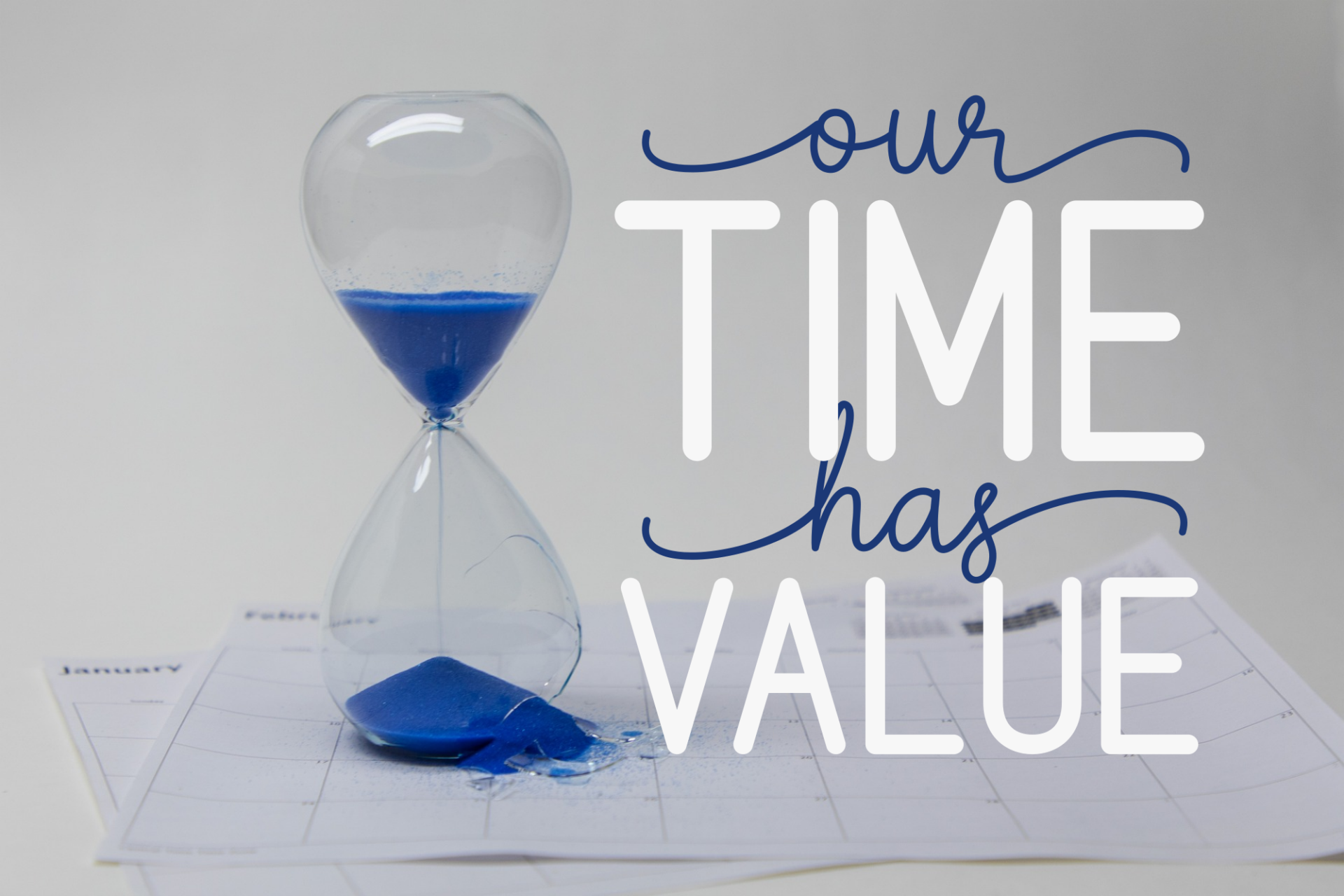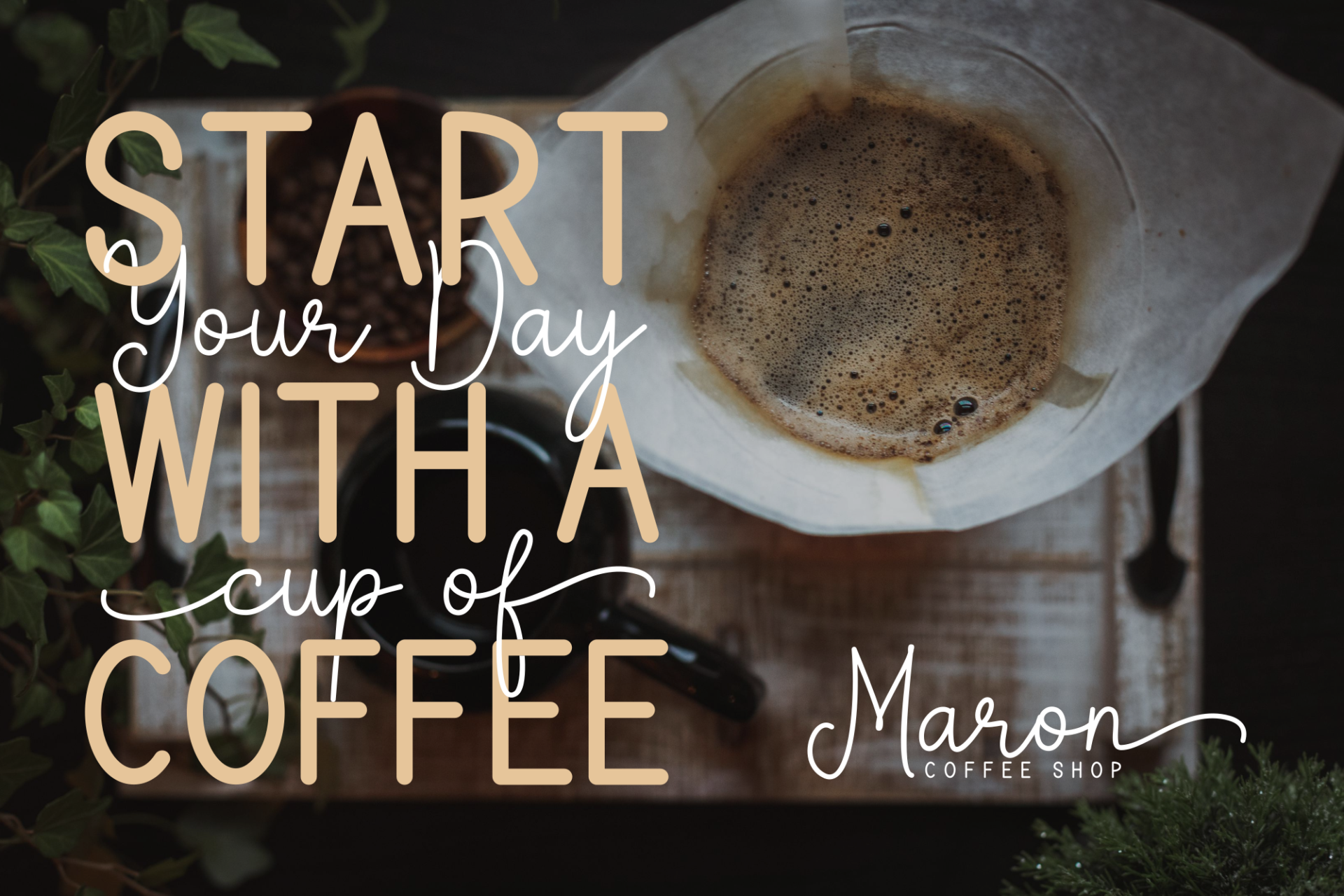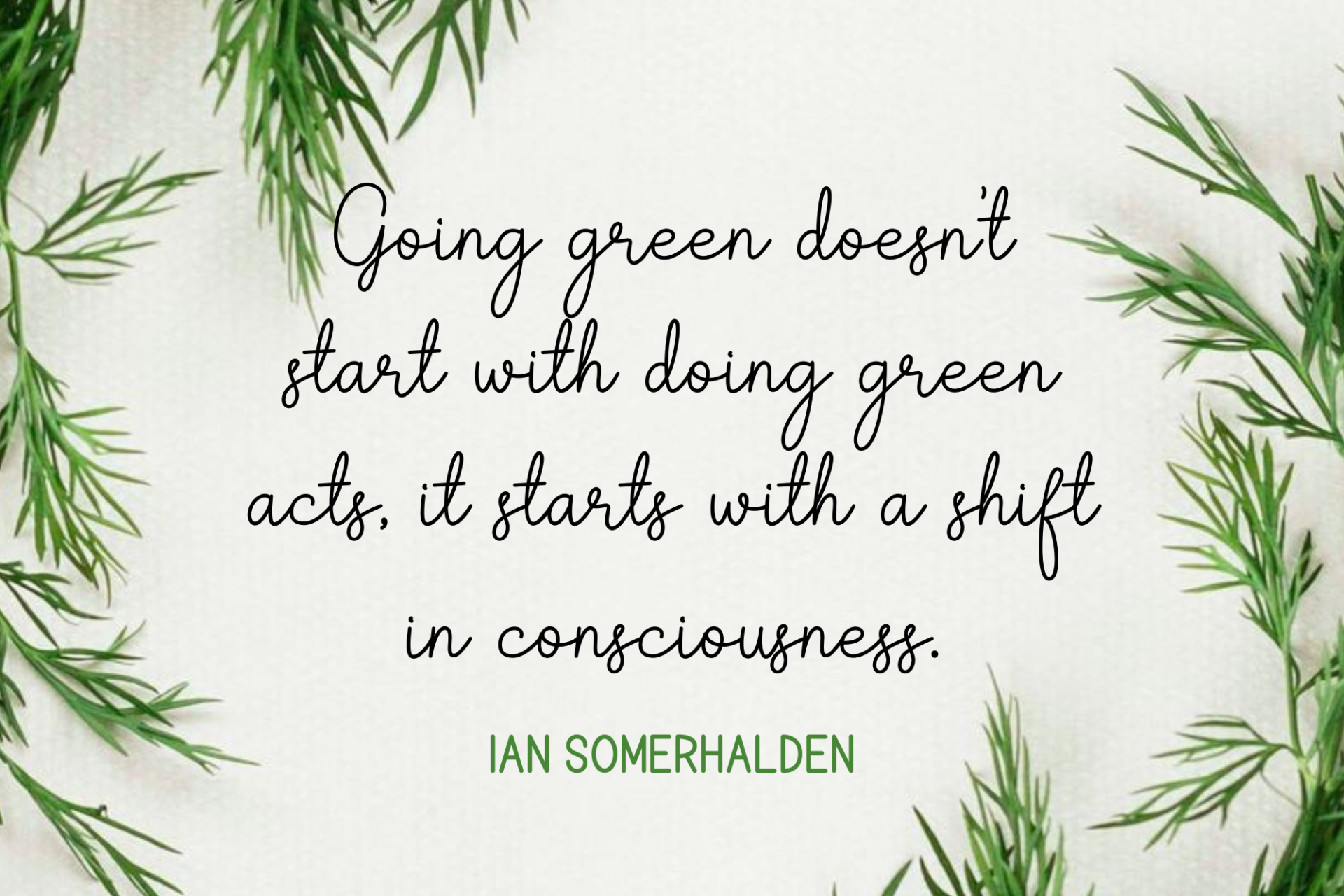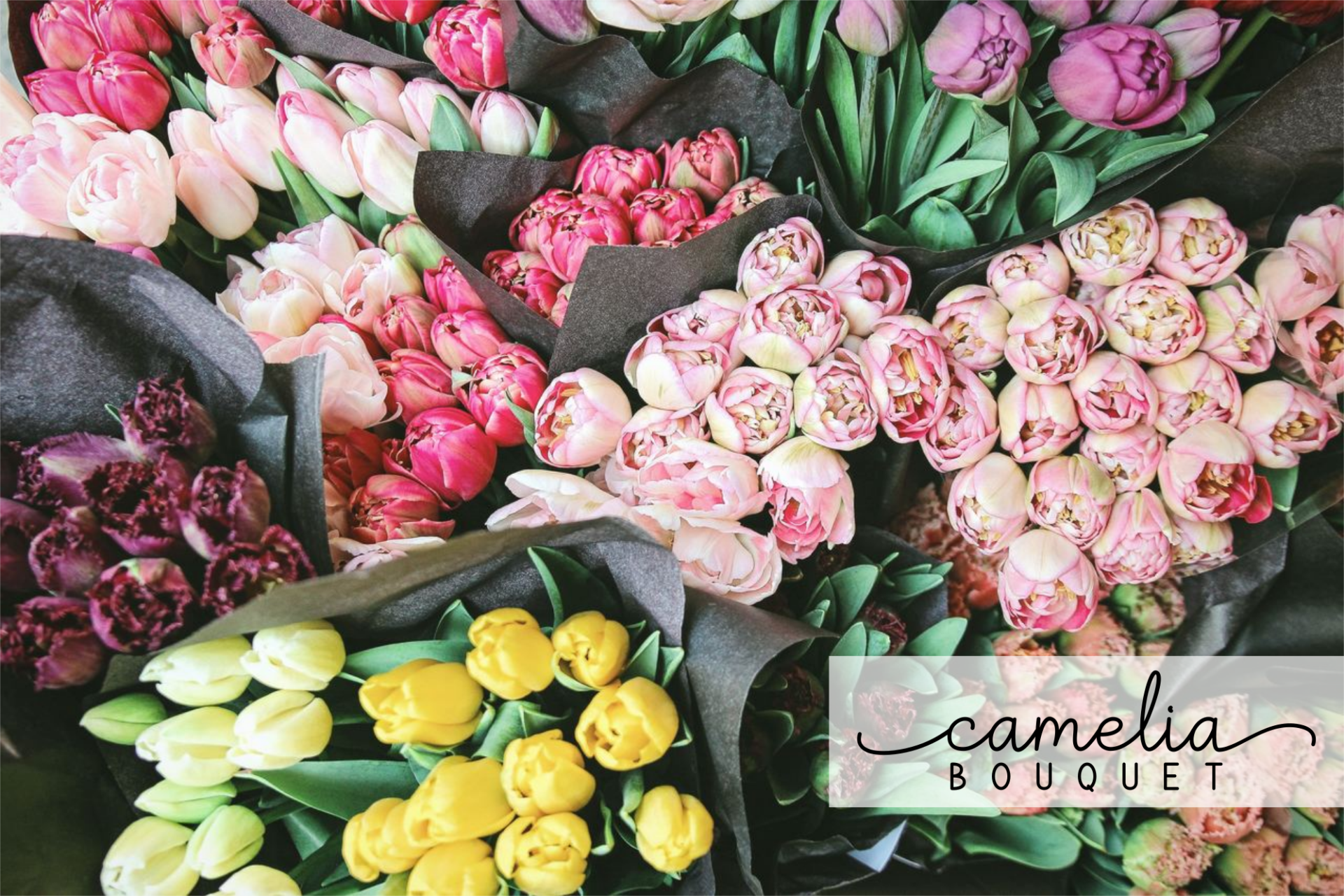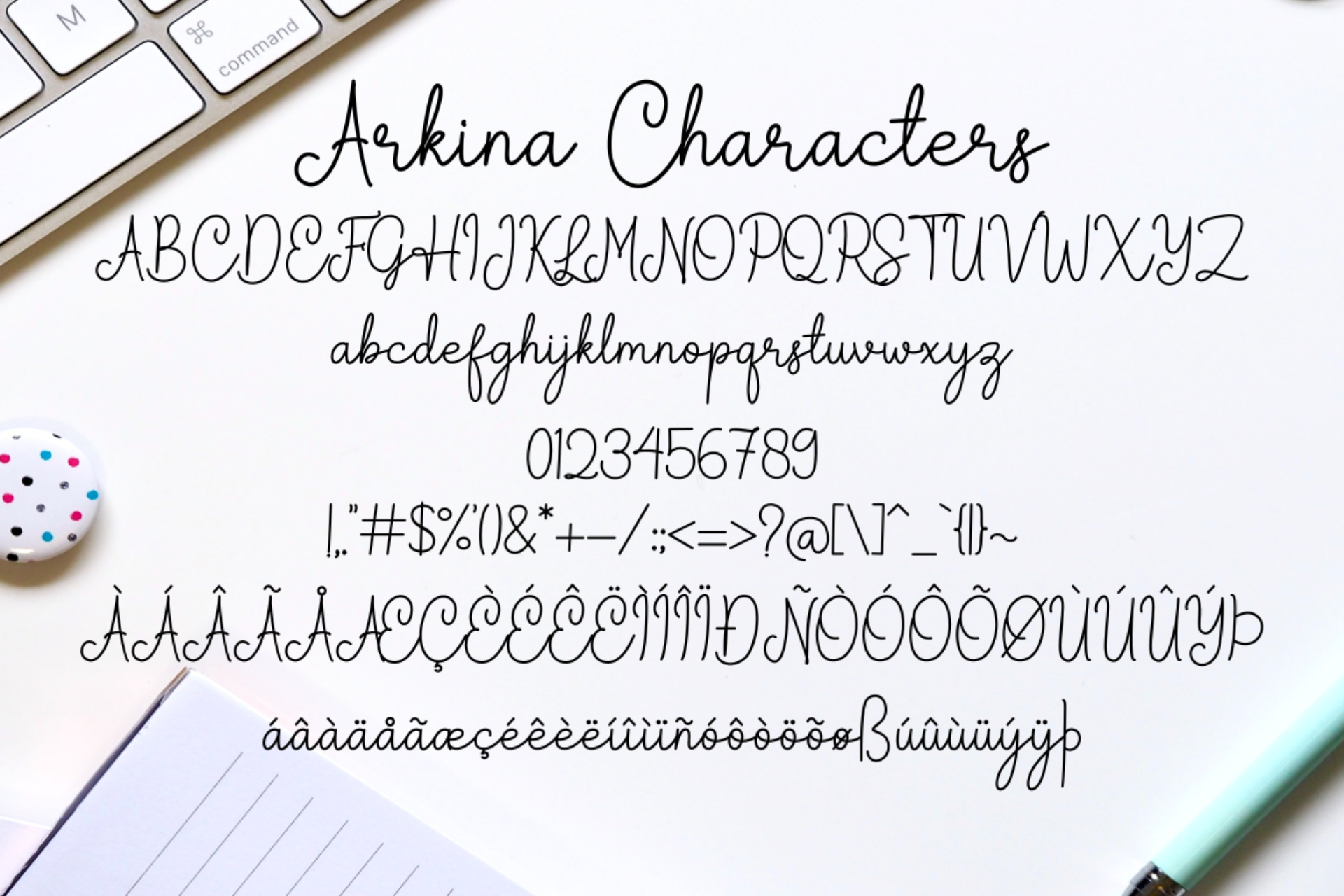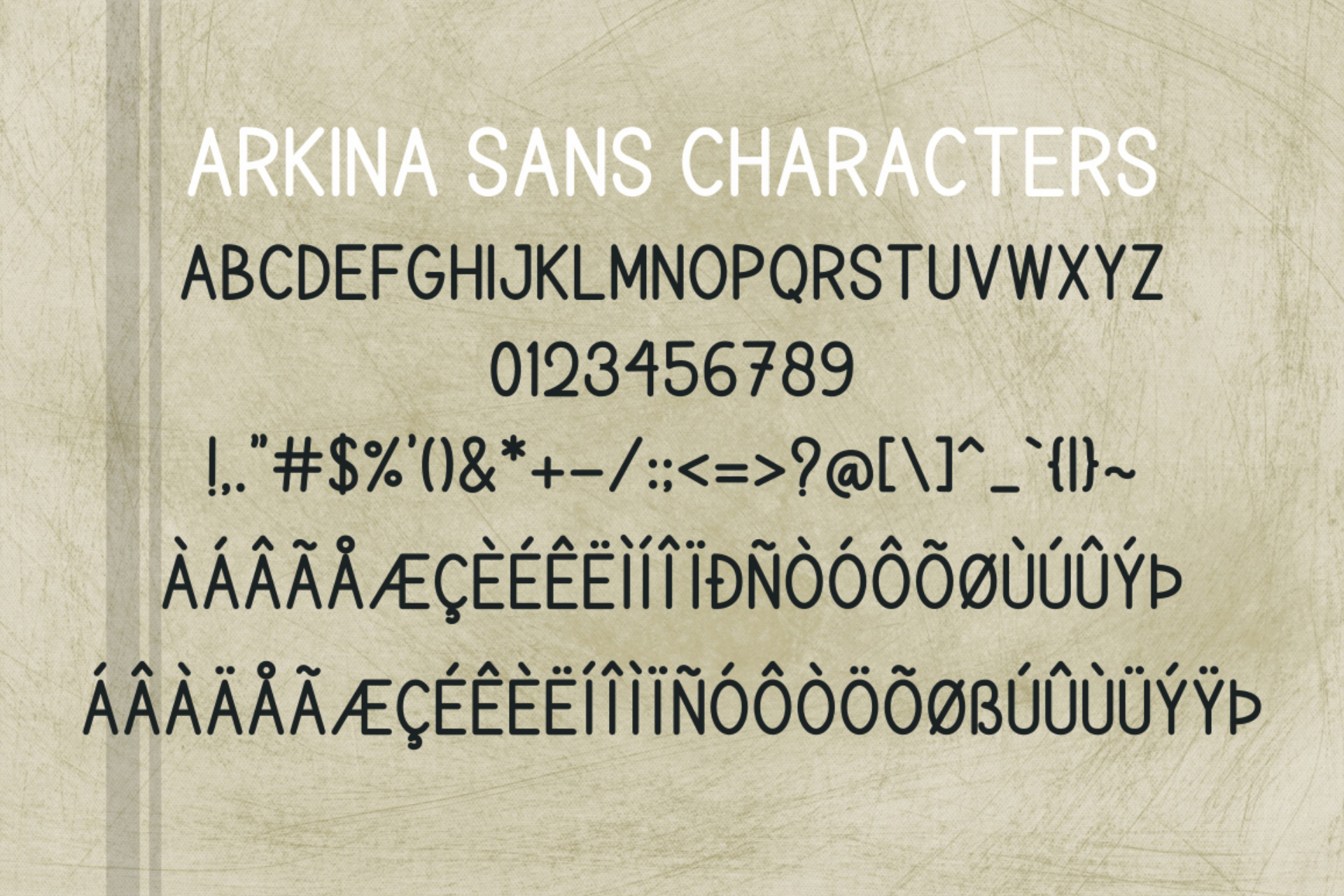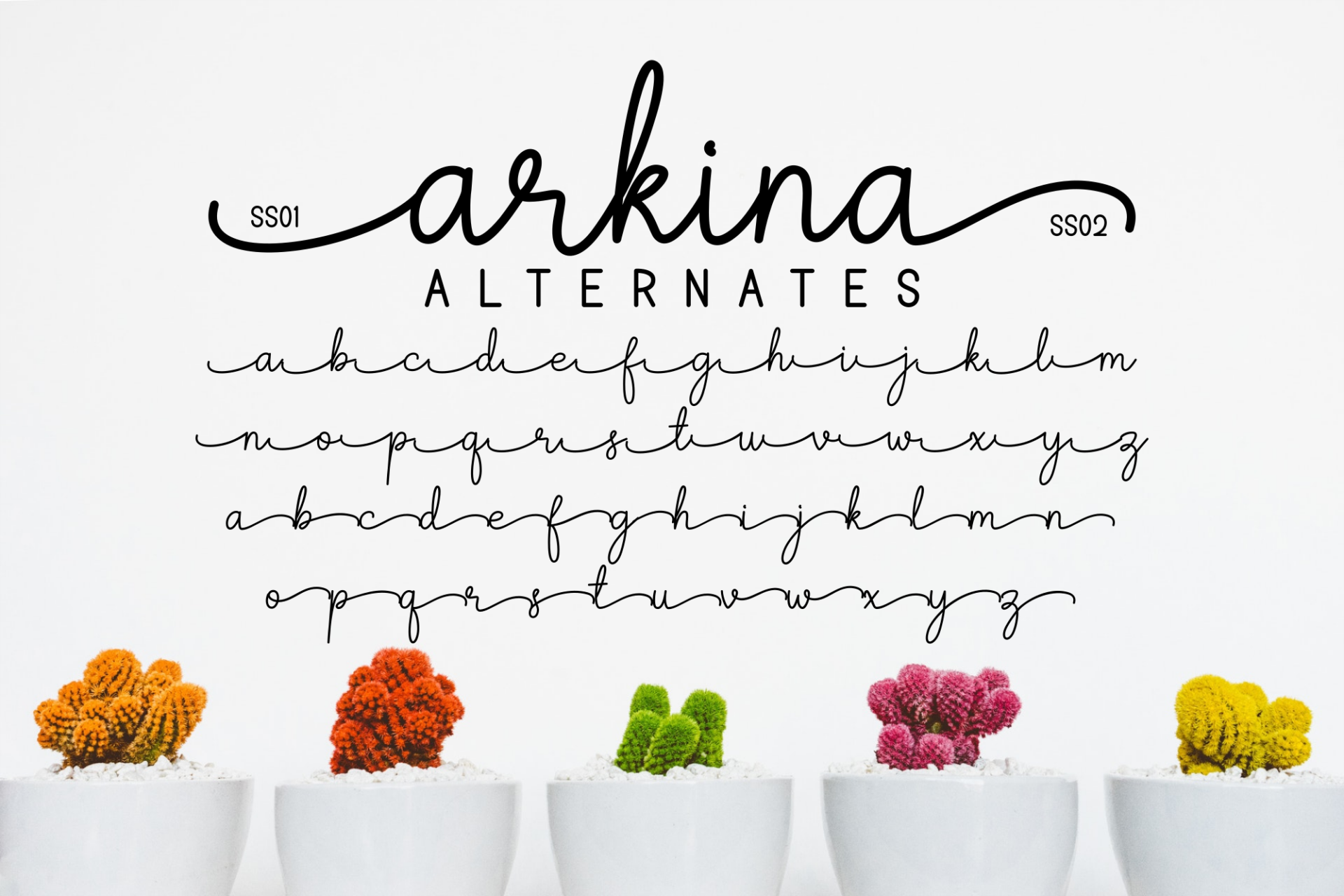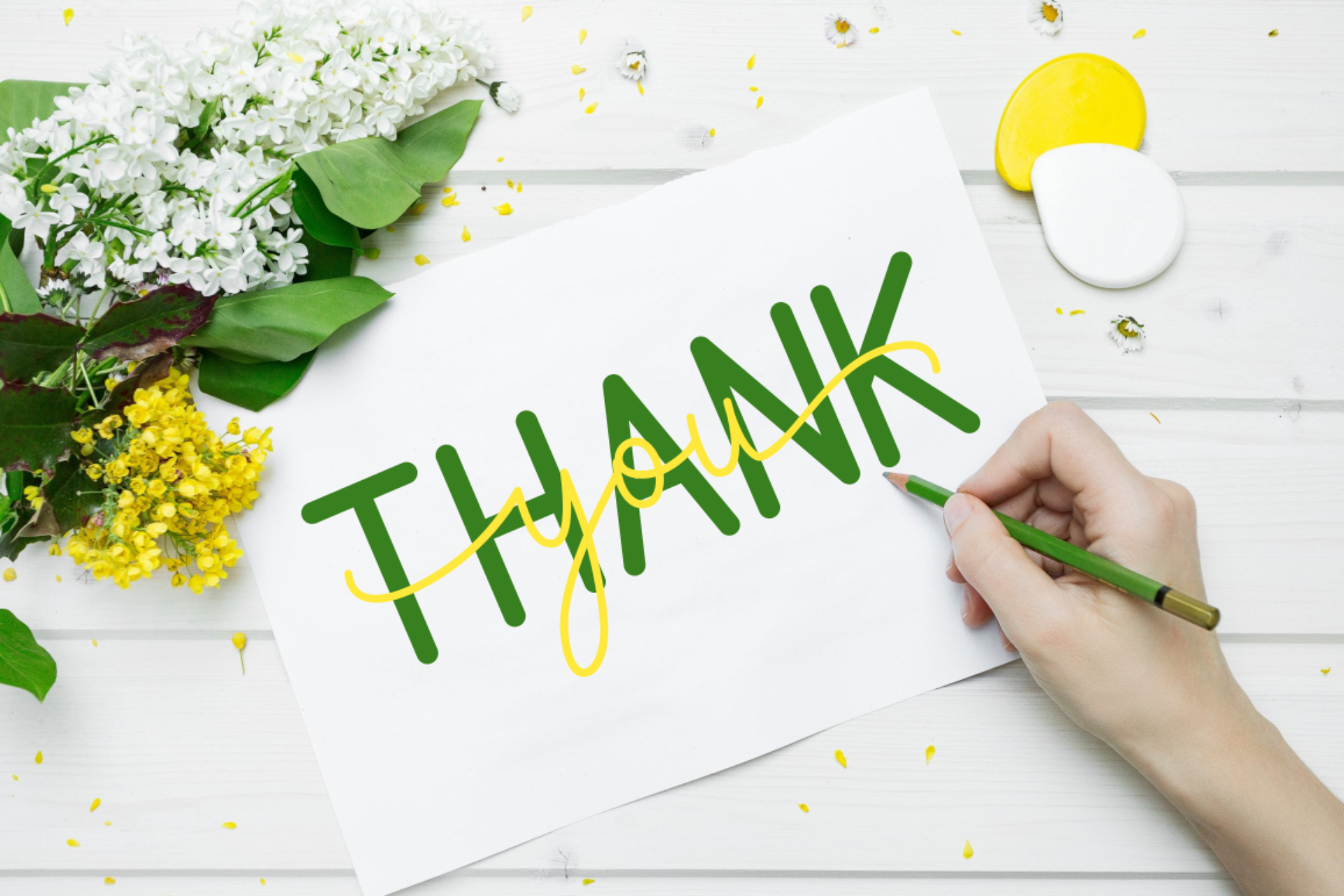
Arkina - Font Duo
Arkina Duo is a beautiful font duo that combines a script font with a matching sans serif font. The pair works together perfectly to create elegant and unique designs.
Arkina, Arkina Sans
Arkina Duo is a beautiful font duo that combines a script font with a matching sans serif font. The pair works together perfectly to create elegant and unique designs. It is ideal for logos, branding, invitations, packaging, quotes, social media graphics, stationery, and more.